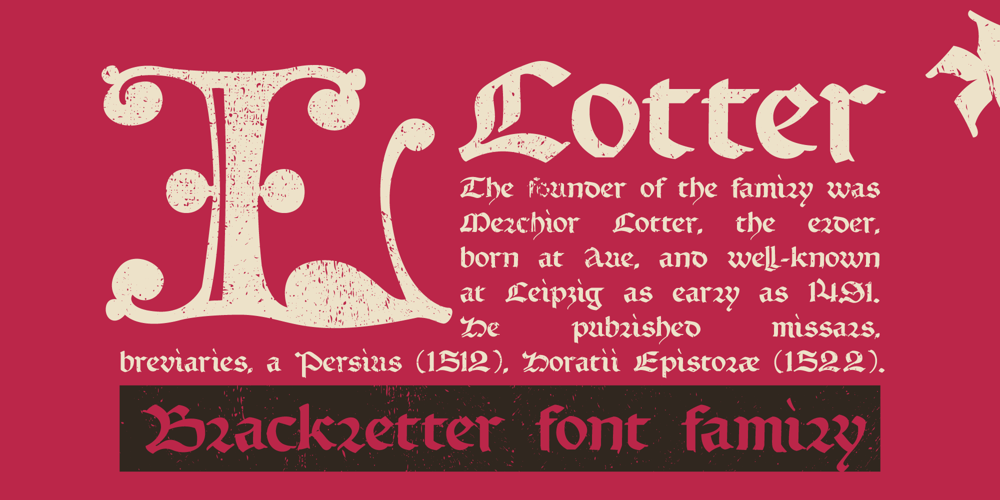
Lotter Font Family was designed by Roman Korolev and published by Kaer. Lotter contains 2 styles and family package options. Lotter blackletter with Drop capsOne fine day I found a vintage book, it called “A treatise by the Dominican friar-writer Marcus von Weida on the Brotherhood of the Holy Rosary”. It was printed in 1515 by Melchior Lotter in Leipzig.The text was illustrated by hand-colored engravings on religious and liturgical themes and beautiful initials I like.Lotter was the last name of a family of German printers, intimately connected with the Reformation. An innovation by the elder Lotter was his use of Roman types for Latin, reserving the Gothic types for German.I’m happy to present to you my new font family. Lotter font family has Drop cap and Regular styles. It’s all you need to precisely imitate medieval style text. Use Drop cap style as a decorative element at the beginning of a paragraph or section, other part of the paragraph should be in Regular style.You’ll get:* Drop cap & Regular styles* Uppercase and lowercase* Multilingual support* Numbers* Symbols* Punctuation* LigaturesPlease feel free to request any help you need: kaer.pro@gmail.comBest, Roman.